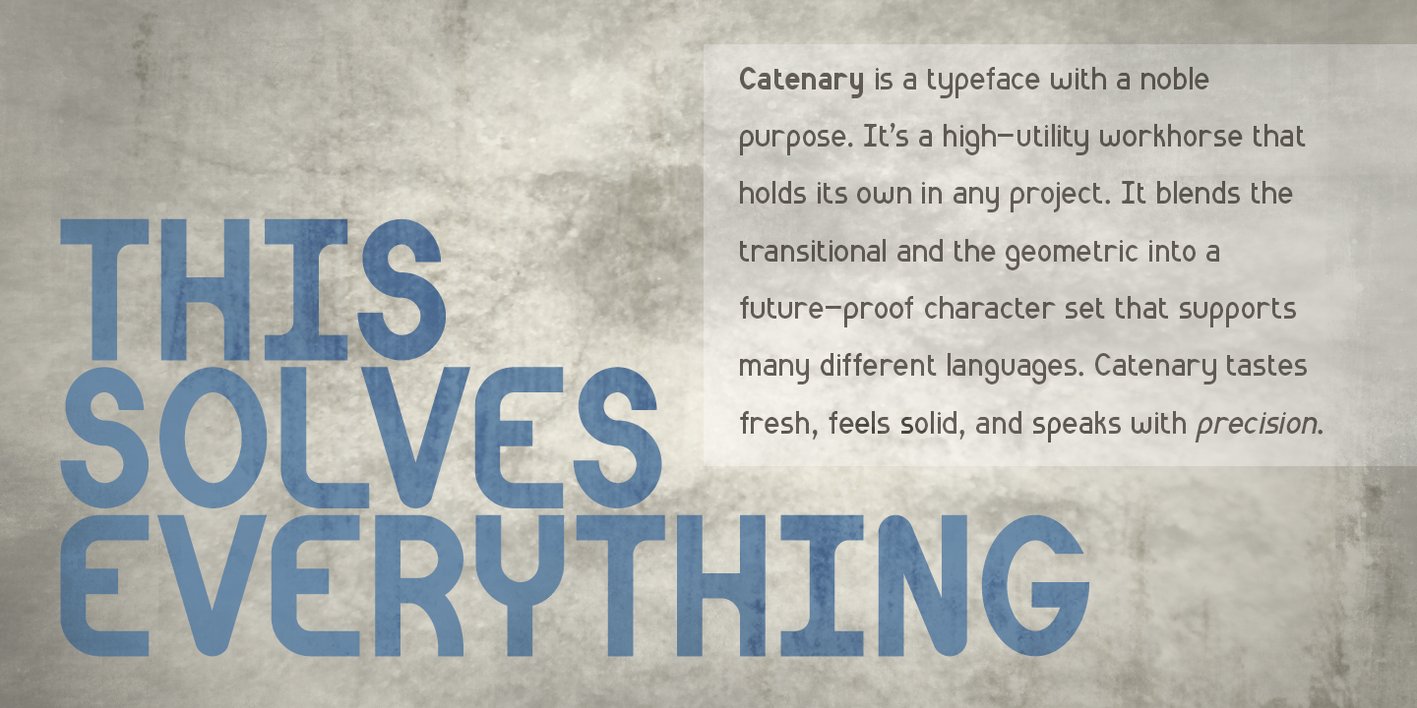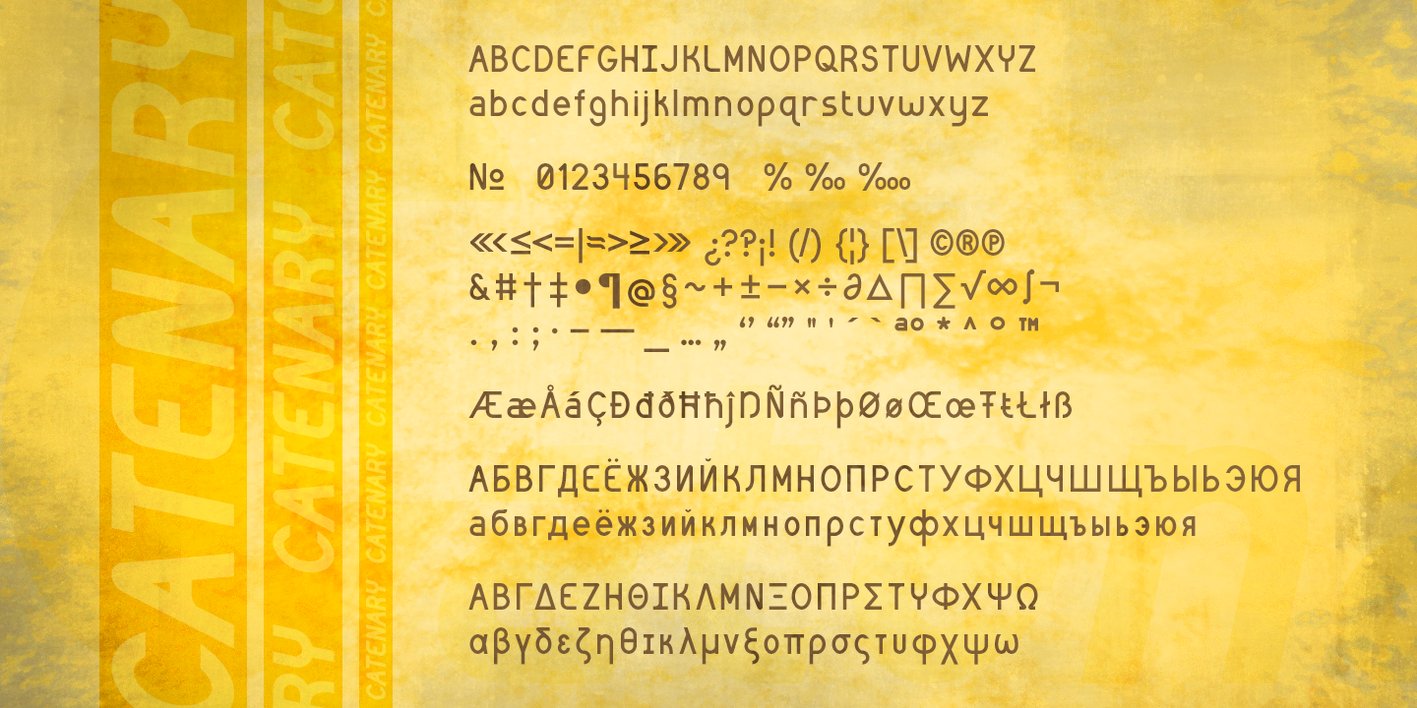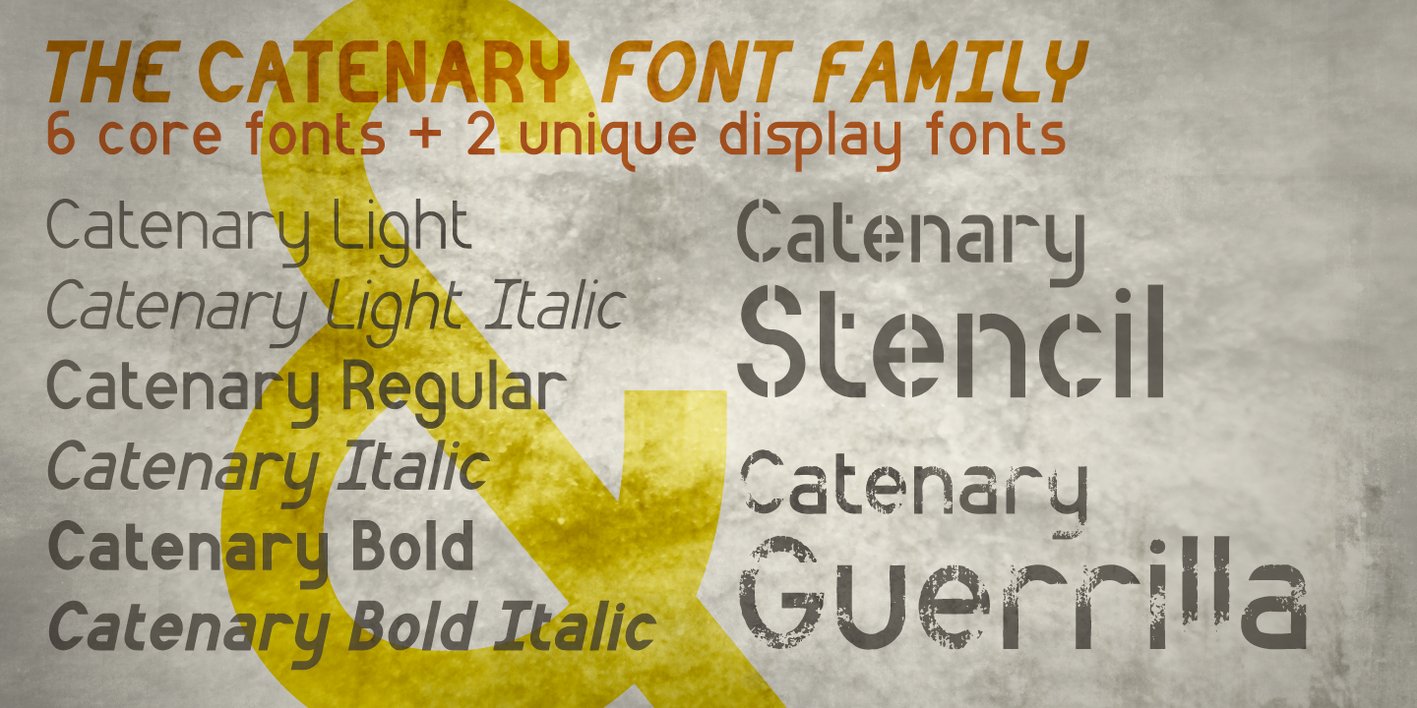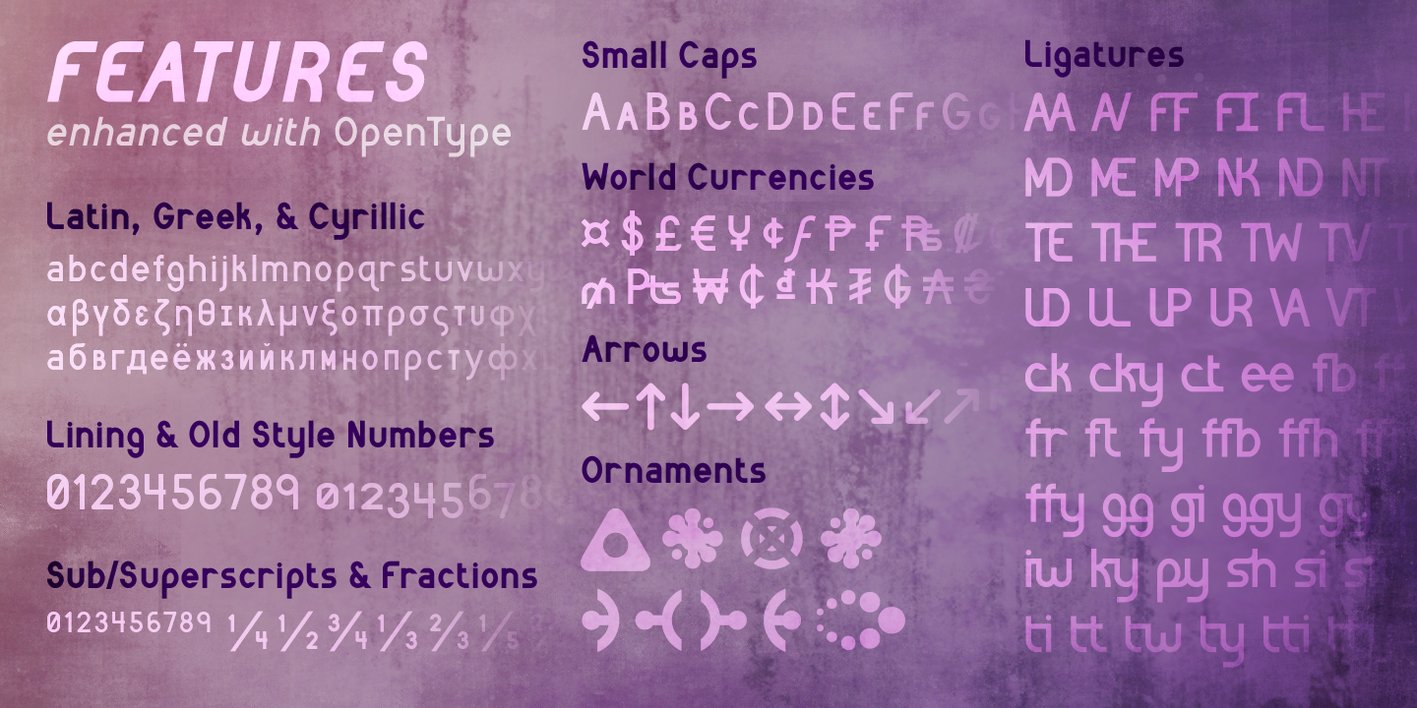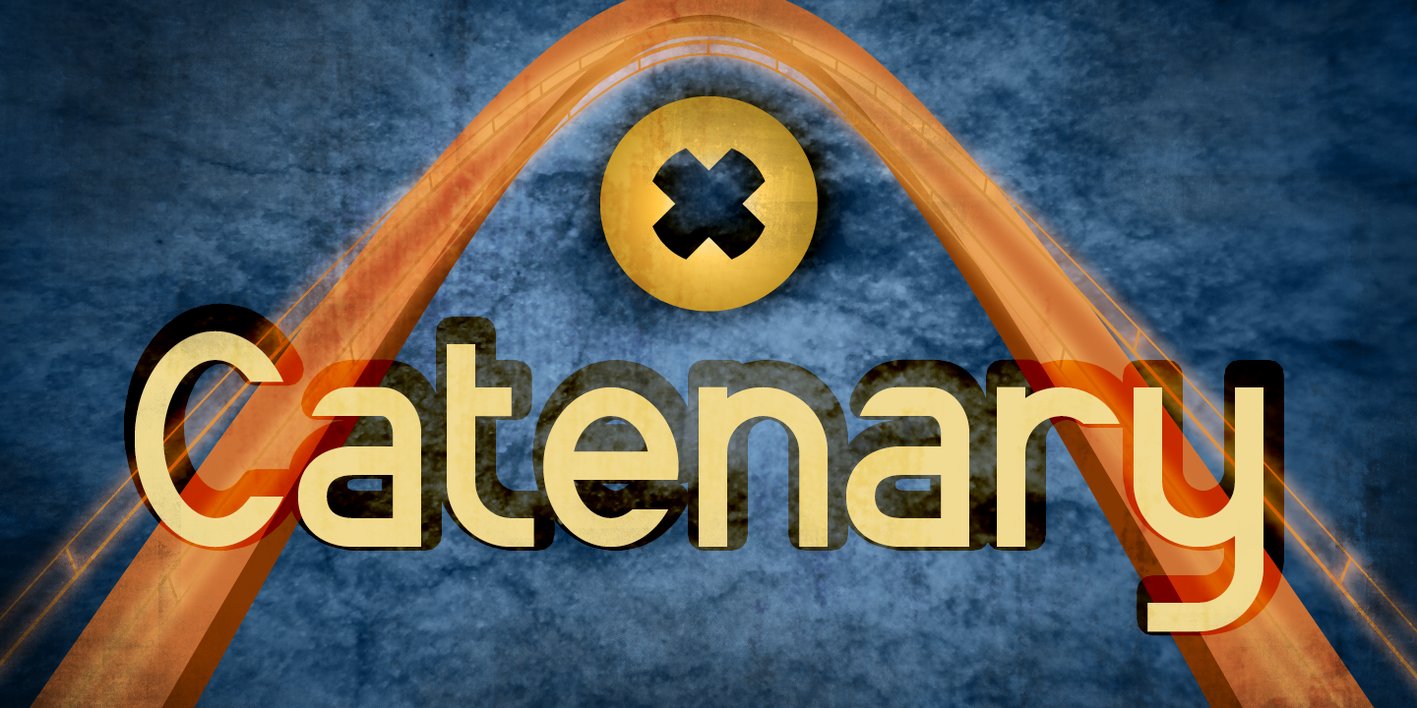
Catenary Font
Catenary Font excels in architectural firm branding, engineering project presentations, bridge construction documentation, structural design portfolios, civil engineering reports, construction company logos, infrastructure project proposals, mathematical publications, physics textbooks, and technical drawing annotations. This sophisticated typeface brings structural elegance to professional communications.
Catenary Font is exciting because it draws inspiration from the natural curve formed by hanging chains or cables under their own weight, creating letterforms that embody both mathematical beauty and structural integrity. Its organic yet precise geometry reflects the perfect balance between natural forces and engineered solutions.
The Catenary Font family includes Light, Regular, Medium, Bold, and Heavy weights with corresponding italics, plus technical variants featuring extended character sets for mathematical symbols and engineering notations, providing comprehensive support for scientific and technical documentation.
Catenary Font Free Download represents a unique fusion of mathematical principles and typographic artistry, inspired by the fundamental curves found in suspension bridges and architectural spans. This remarkable typeface has gained recognition among engineering professionals and architectural studios for its ability to communicate technical expertise while maintaining visual sophistication.
Design professionals value Catenary Font for its exceptional performance in technical documentation and its ability to convey structural reliability through typography. The font's curve-based construction creates a sense of dynamic equilibrium that resonates with audiences in engineering, architecture, and construction industries, where precision and stability are paramount.
The mathematical foundation of Catenary Font includes carefully calculated proportions based on natural catenary curves, ensuring harmonious relationships between letterforms that mirror the structural principles found in iconic bridges and architectural masterpieces. This attention to mathematical detail makes it particularly suitable for projects requiring both aesthetic appeal and technical credibility.
Whether used for engineering firm websites, construction project reports, or architectural competition submissions, Catenary Font delivers the perfect synthesis of natural beauty and technical precision. Its structural inspiration and mathematical elegance make it an indispensable choice for professionals who appreciate the intersection of art, science, and engineering excellence.